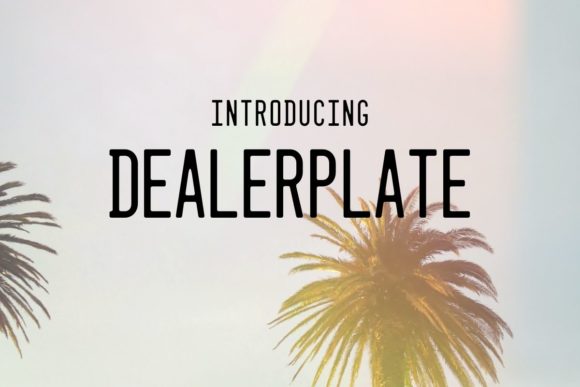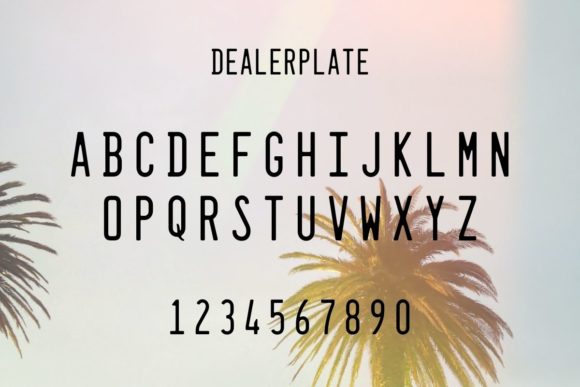
HomePersonal Use FreeDealerplate California Personal Use Free Dealerplate California FacebookXPinterestWhatsApp 1 of 2 About Dealerplate California Font Dealerplate California is an all-caps, sans serif font inspired by embossed car license plates. Its neat and clean lines make it a great font to use for headings or in the text body. DOWNLOAD ON CREATIVE FABRICAThis font is sold and delivered by Creative Fabrica. Font Canyon may earn a commission if you buy through this link. People also explored Carpathian Legend Font Adelitha Font Sublimation Font Authorians Font Febian Script Font Master Bold Font Falviola Font Foonky Higasper Font 694 0 TagsDealerplate California Font Previous articleBullpenNext articleAxaxax Bold LEAVE A REPLY Cancel reply Comment: Please enter your comment! Name:* Please enter your name here Email:* You have entered an incorrect email address! Please enter your email address here Website: Save my name, email, and website in this browser for the next time I comment. Personal Use Free Crayones Personal Use Free Read more about this font Potato Pancakes Personal Use Free Read more about this font Klotee Personal Use Free Read more about this font Child Witch Personal Use Free Read more about this font BLOG Using Fonts in Digital Marketing: Tips to Strengthen Your Brand Identity In the realm of digital marketing, every visual element plays a crucial role in shaping a brand's identity, and fonts are no exception. The... Where to Buy American Fonts Online in 2024 Best Fonts for YouTube Videos: Make Your Thumbnails Stand Out How to Install and Use Fonts on Windows, macOS, and Web Projects